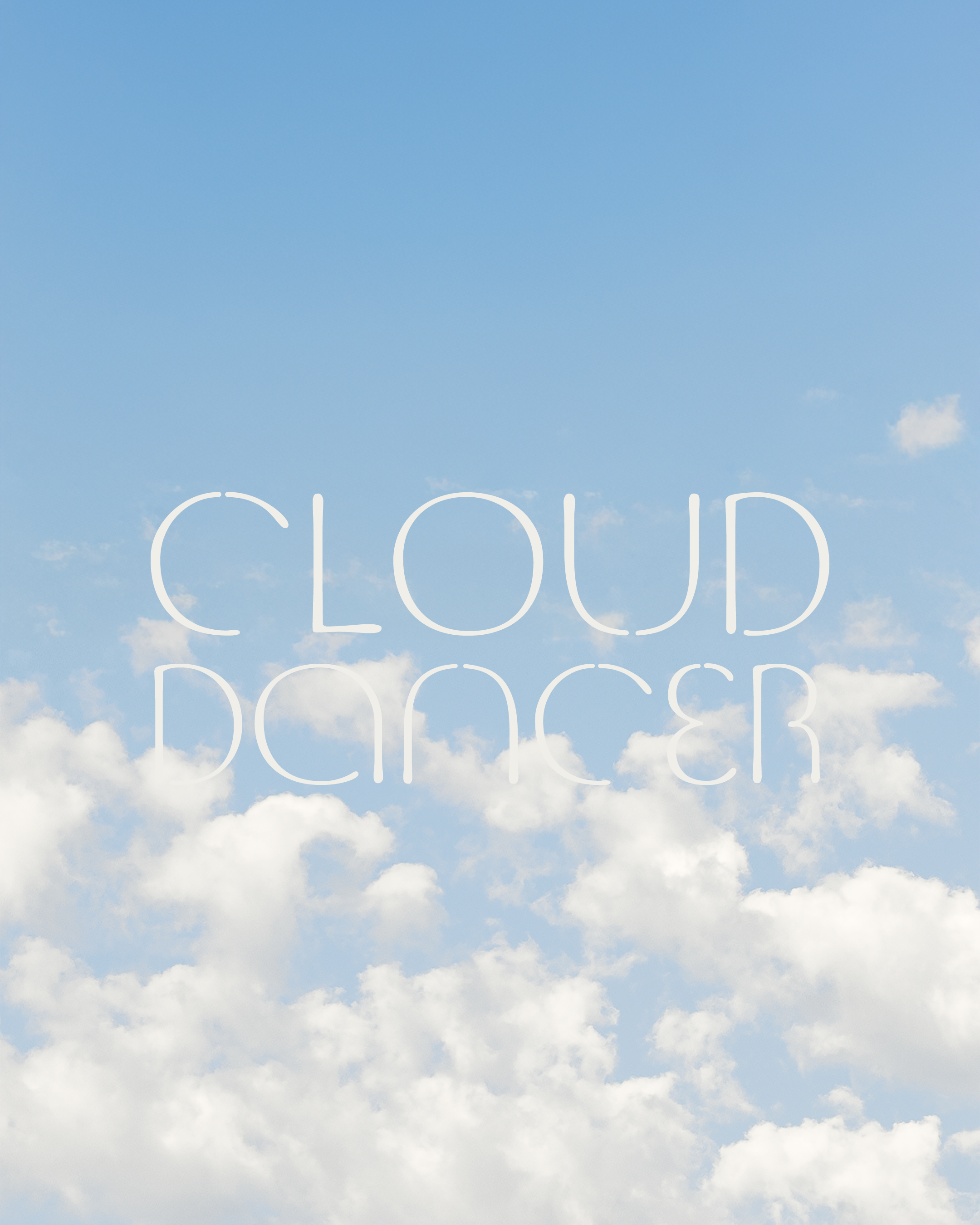
Monotype is proud to be an official partner of the Pantone Color of the Year 2026. As part of our collaboration, we wanted to explore the meaning behind PANTONE 11-4201 Cloud Dancer via typography, a language that feels tangible to us. Monotype's Senior Executive Creative Director, Charles Nix worked closely with Pantone to select a typeface to express the Pantone Color of the Year 2026, ensuring that it reflects both the simplicity and expansiveness of PANTONE 11-4201 Cloud Dancer's message.
We’ve partnered with Pantone to give the first ever typographic expression for the Pantone Color of the Year, pairing Jensen Arabique with this year’s selection; PANTONE 11-4201 Cloud Dancer. Our partnership shows that for every idea expressed and every shade of color chosen, there is a perfect font. Finding that perfect pairing in a world of abundant creative assets means that the art of design is increasingly dependent on the evolving art – and AI – of discovery.
Cloud Dancer x Jensen Arabique
Cloud Dancer
Jensen Arabique
CLOUD DANCER
PANTONE 11-4201
A SERENE, ETHEREAL HUE IMBUED WITH SOFTNESS AND SOPHISTICATION. PAIRED WITH THE TIMELESS ELEGANCE OF JENSEN ARABIQUE FOR DISTINCTIVE CHARACTER.
Typography is just as much about emotion as it is about aesthetics, and Charles tapped into this by choosing the typeface Jensen Arabique™ to pair with PANTONE 11-4201 Cloud Dancer.
This timeless yet modern serif balances the calming essence of Cloud Dancer with a hint of sophistication, giving the color an extra layer of depth and meaning.